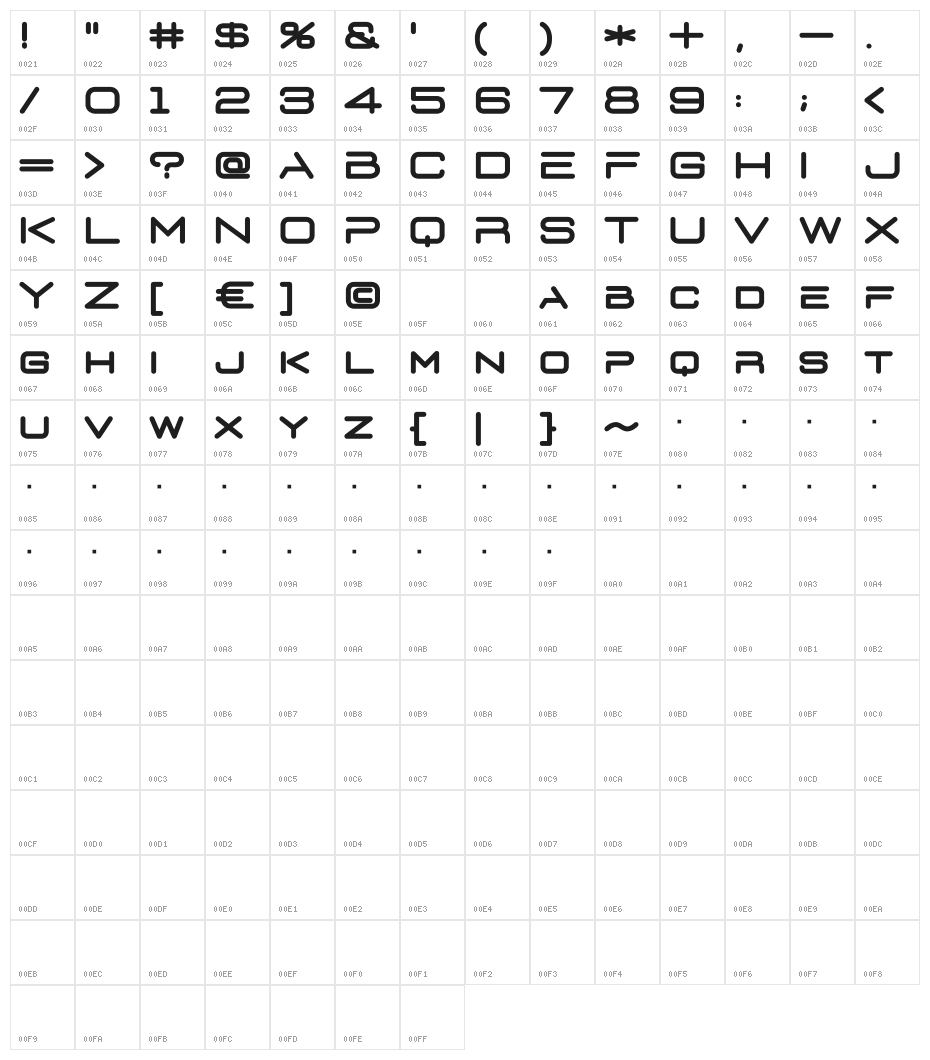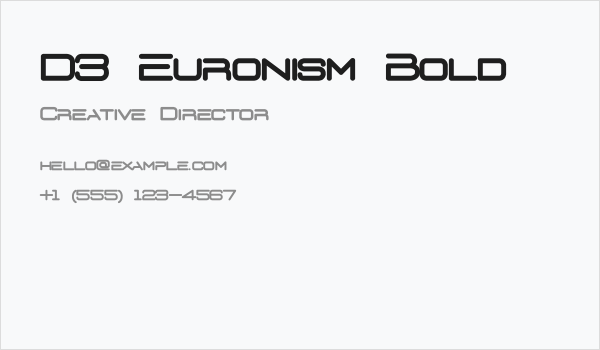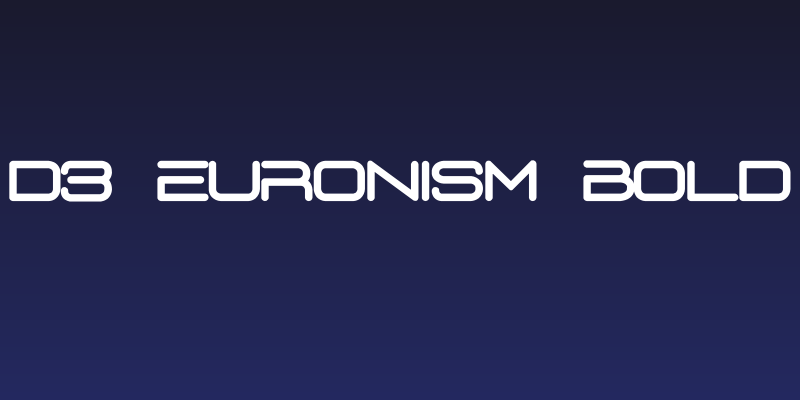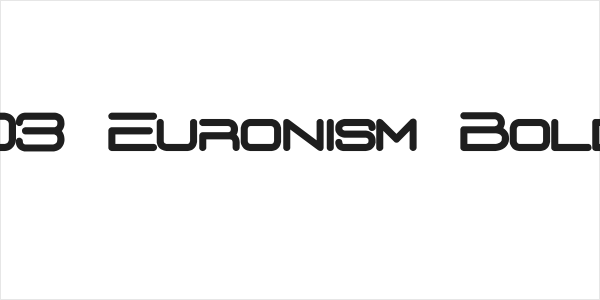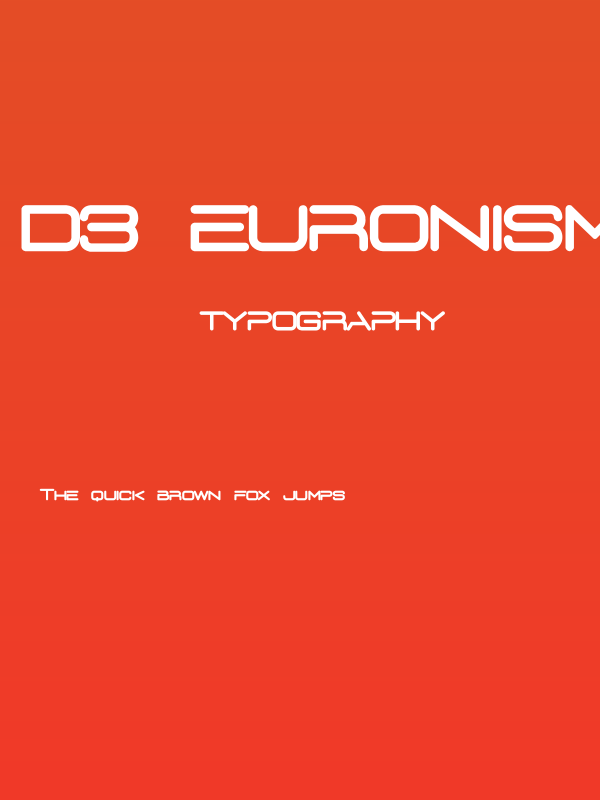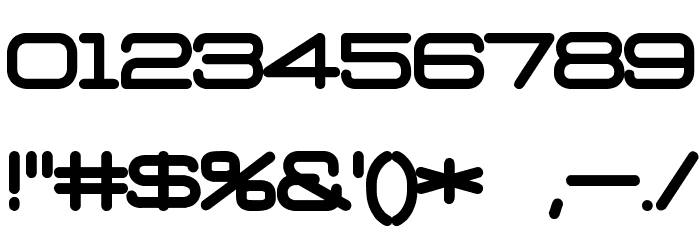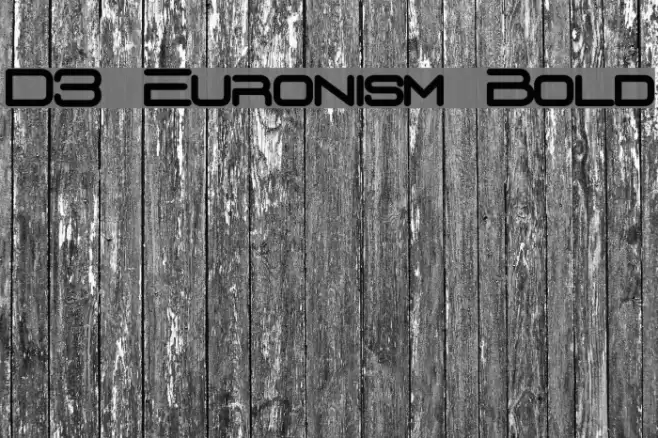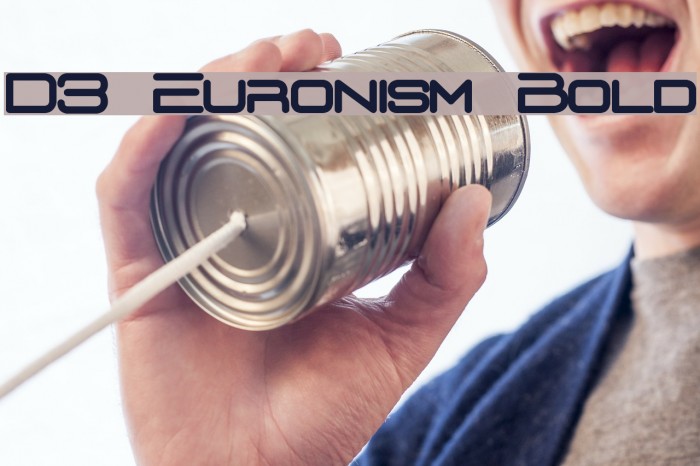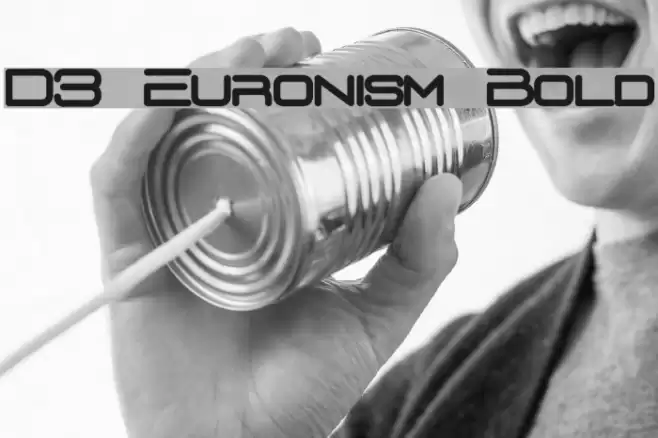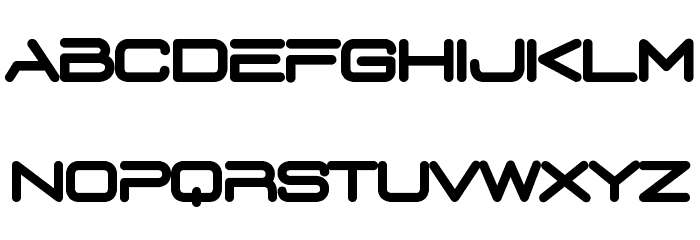
D3 Euronism Bold Font
D3 Euronism Bold Description
This font features a futuristic and geometric design, characterized by its rounded edges and consistent stroke width. The letters are constructed with a modern aesthetic, incorporating a sense of minimalism and sleekness. The uppercase and lowercase letters maintain a uniform appearance, with a slight emphasis on horizontal lines. Numbers and special characters follow the same design principles, ensuring a cohesive look across all glyphs. The font's style is both bold and clean, making it suitable for projects that require a contemporary and tech-savvy appearance.
| Use Case | Logos, Headlines, Digital Interfaces |
| Proposed Projects | Ideal for technology branding, sci-fi themed designs, modern advertising, and digital interfaces. |